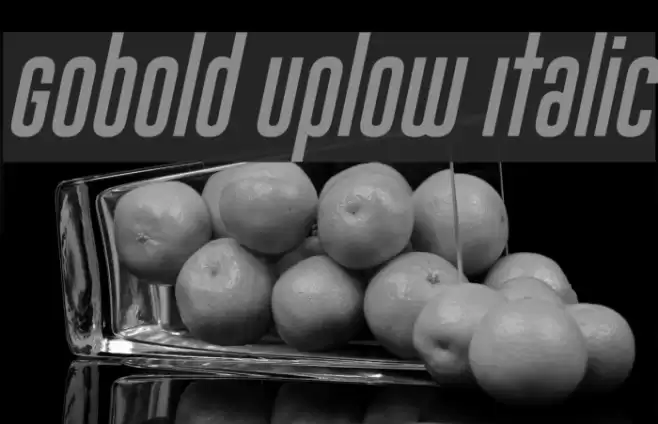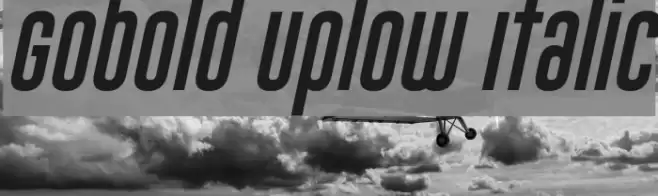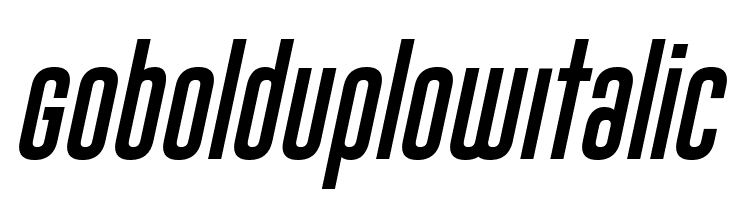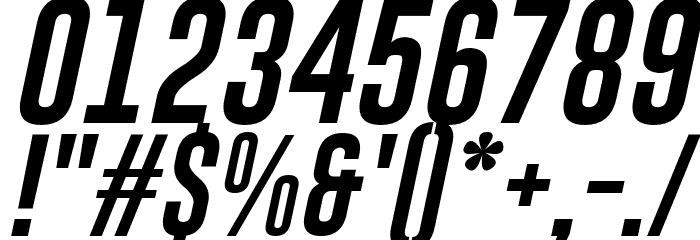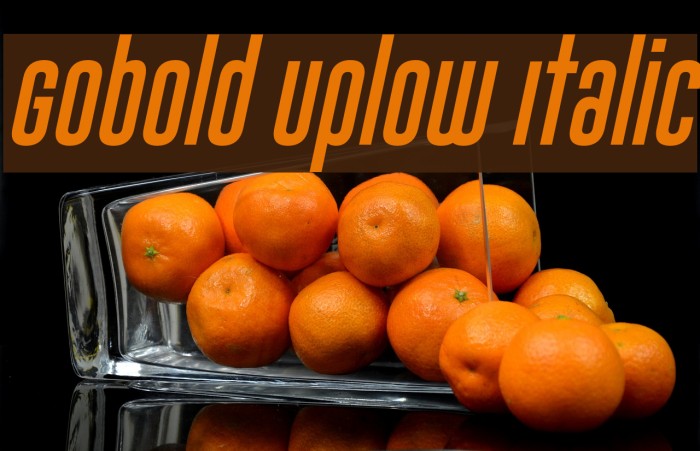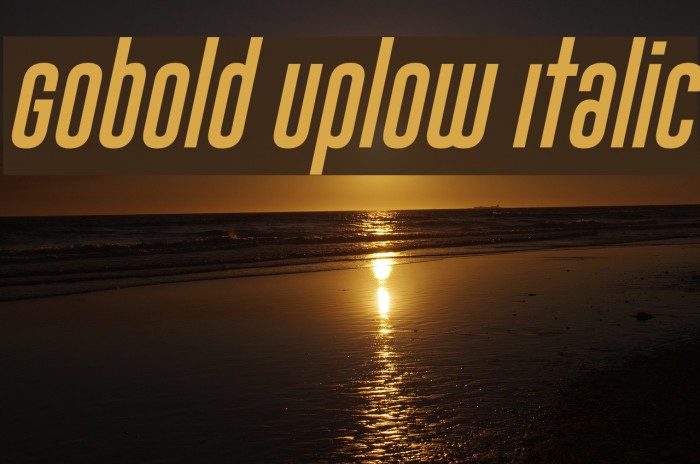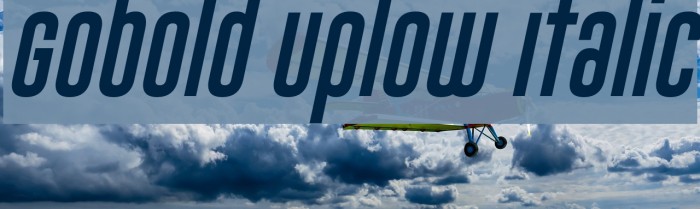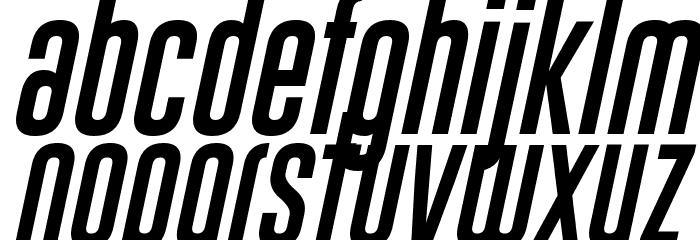
Gobold Uplow Italic Font
Gobold Uplow Italic Description
This font exhibits a bold and dynamic style with a strong italic slant, giving it a sense of motion and urgency. The characters are tall and narrow, contributing to a condensed appearance that maximizes space efficiency. The strokes are consistent in weight, providing a uniform look across all characters. The uppercase letters are prominent and commanding, while the lowercase letters maintain readability with a slightly more relaxed form. Numerals and special characters are designed to match the overall aesthetic, ensuring cohesion throughout. This font is ideal for projects that require a modern and impactful visual presence.
A bold, italic, and condensed font with a dynamic and modern style from Uncategorized fonts.
- Proposed Projects: Ideal for sports branding, dynamic posters, modern advertising, and impactful headlines.
- Character Spacing: Tight